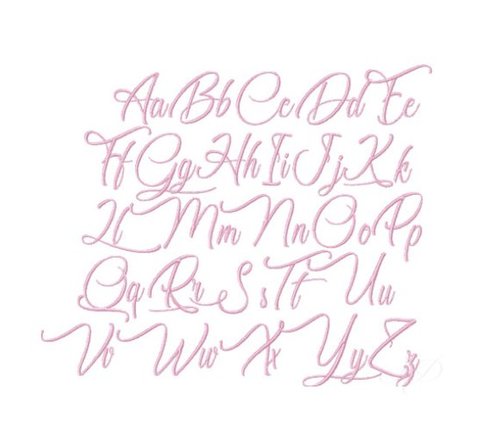
Carolyn Satin Embroidery Font
Introducing the Carolyn Satin Embroidery Font, designed for crafters seeking a modern and romantic touch in their projects. This exquisite font features handwritten style with elegant swashes on uppercase letters, making it perfect for personalized monograms or unique design elements.